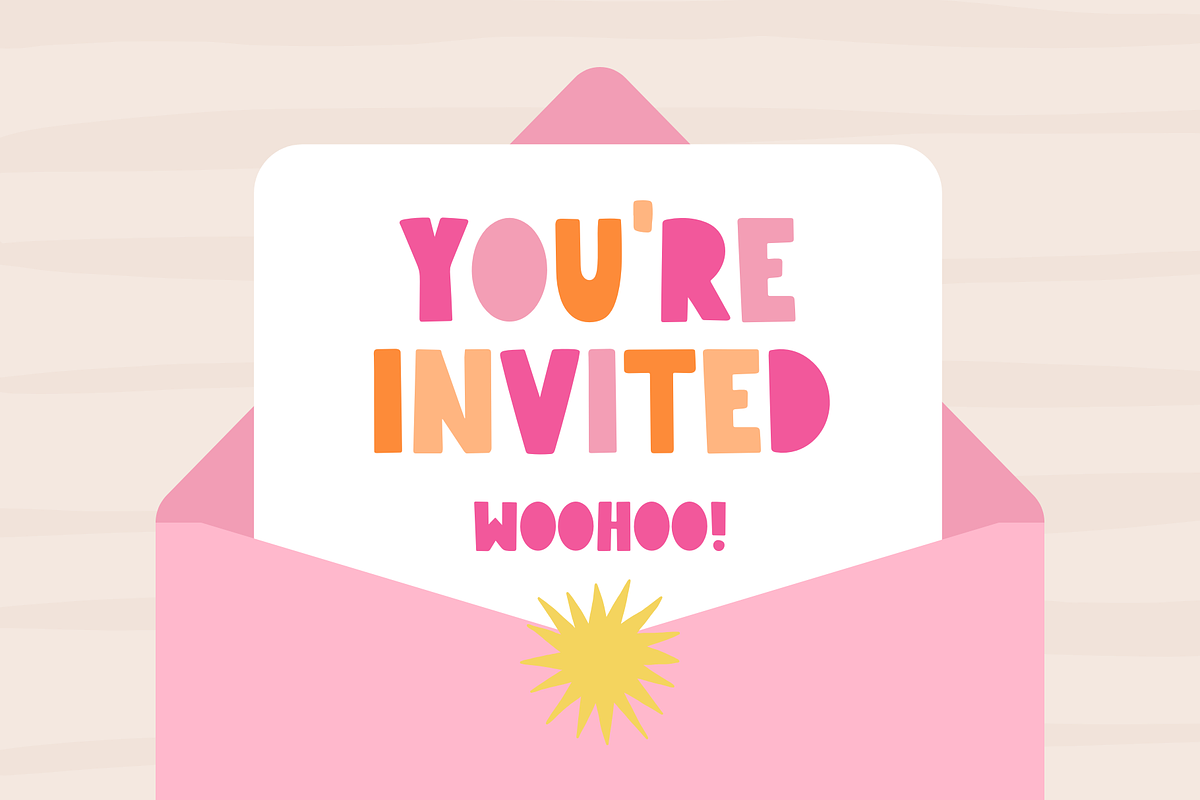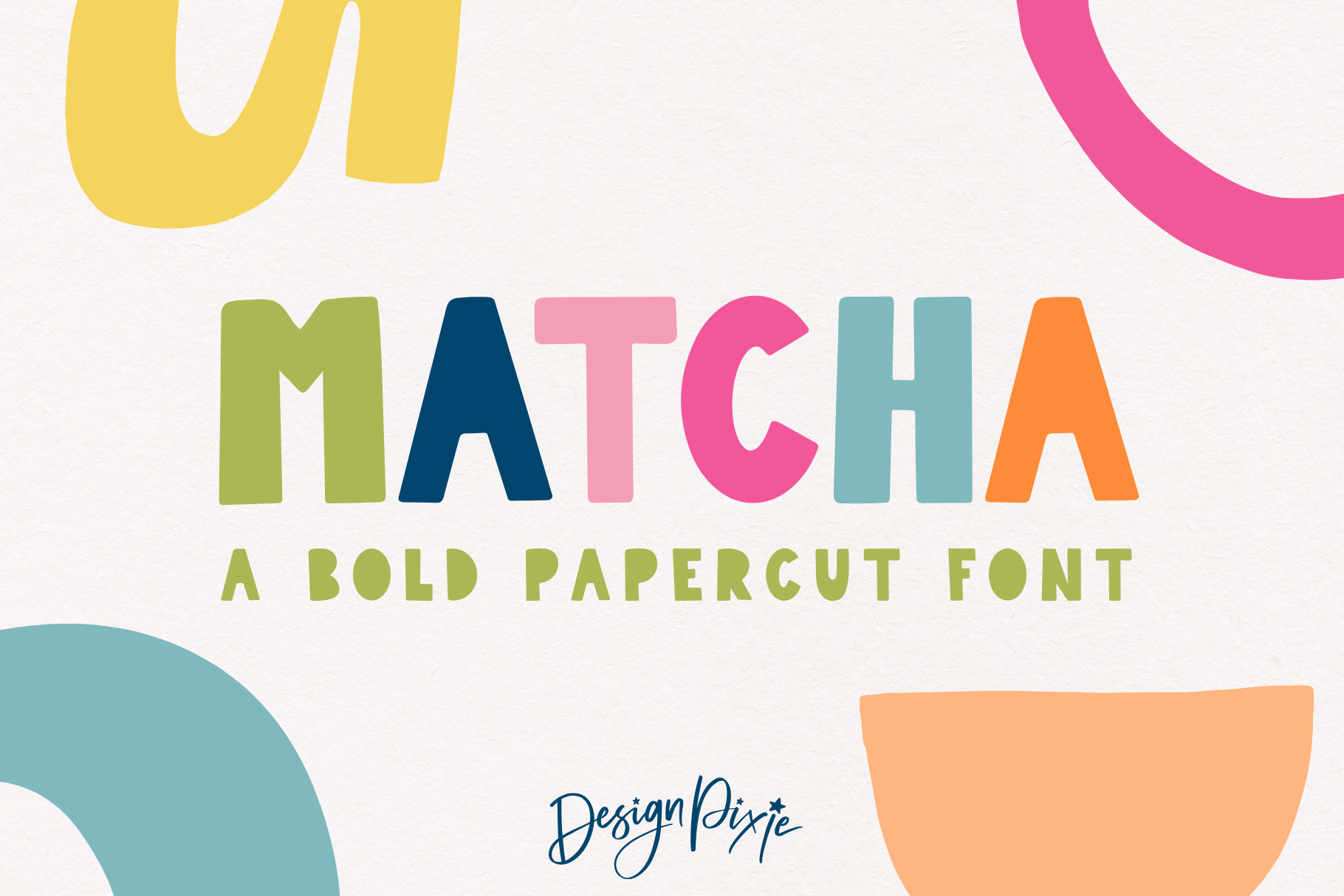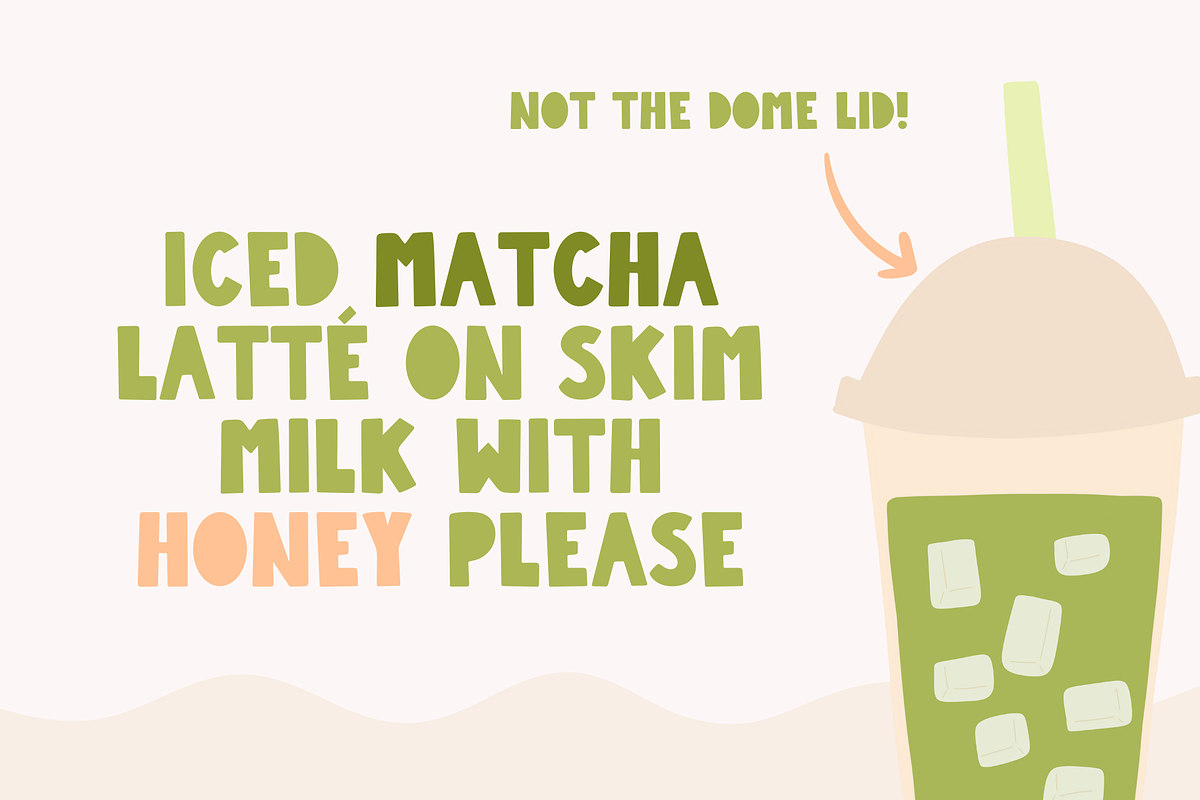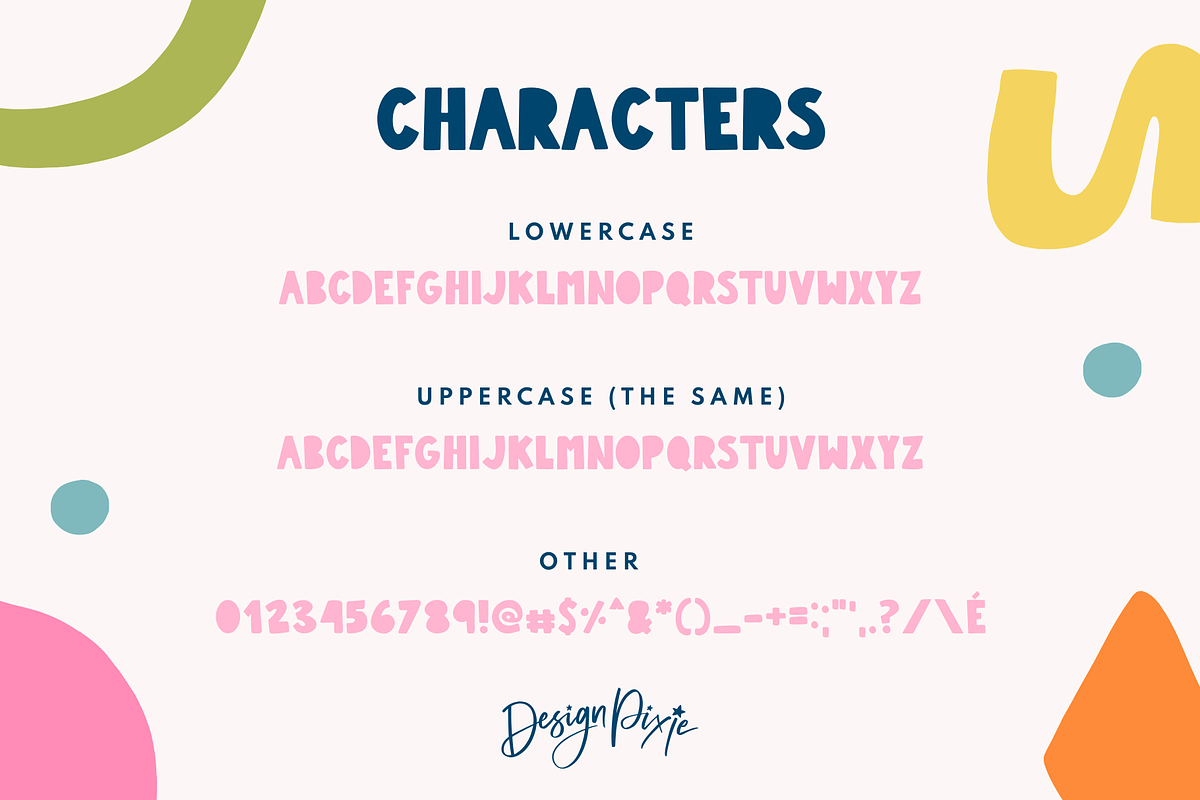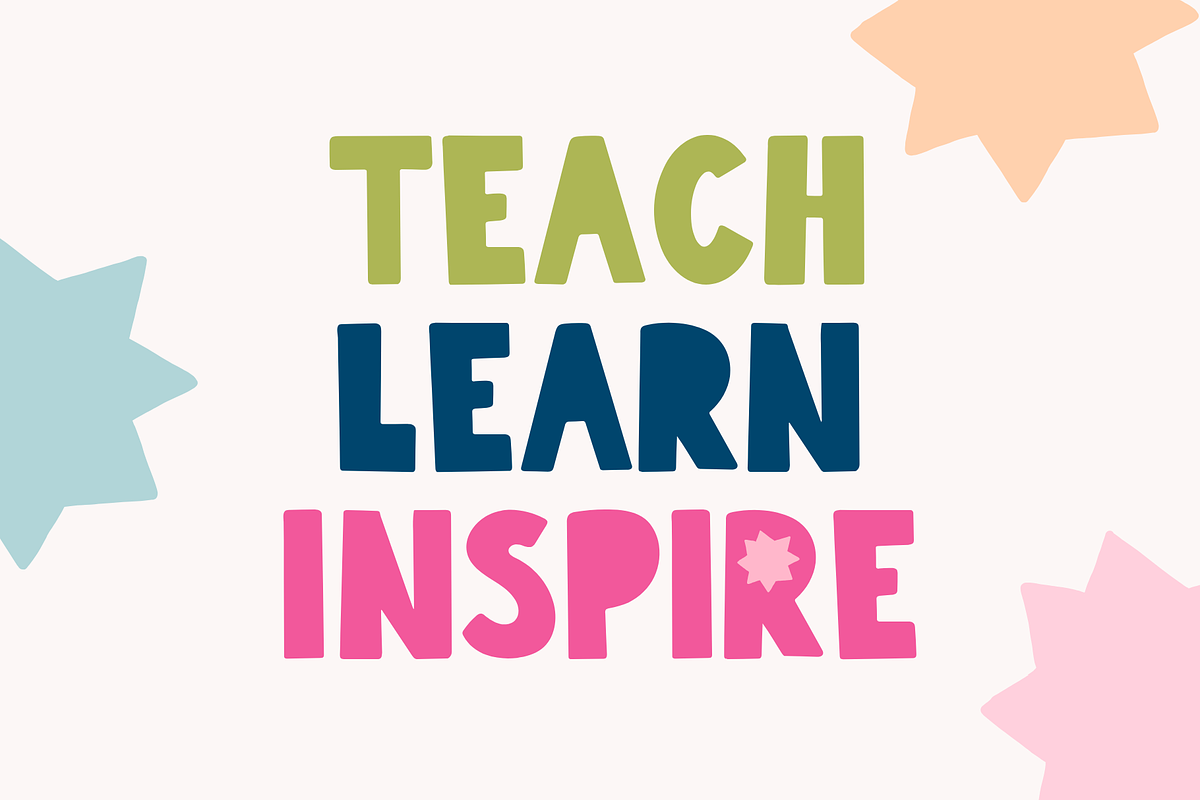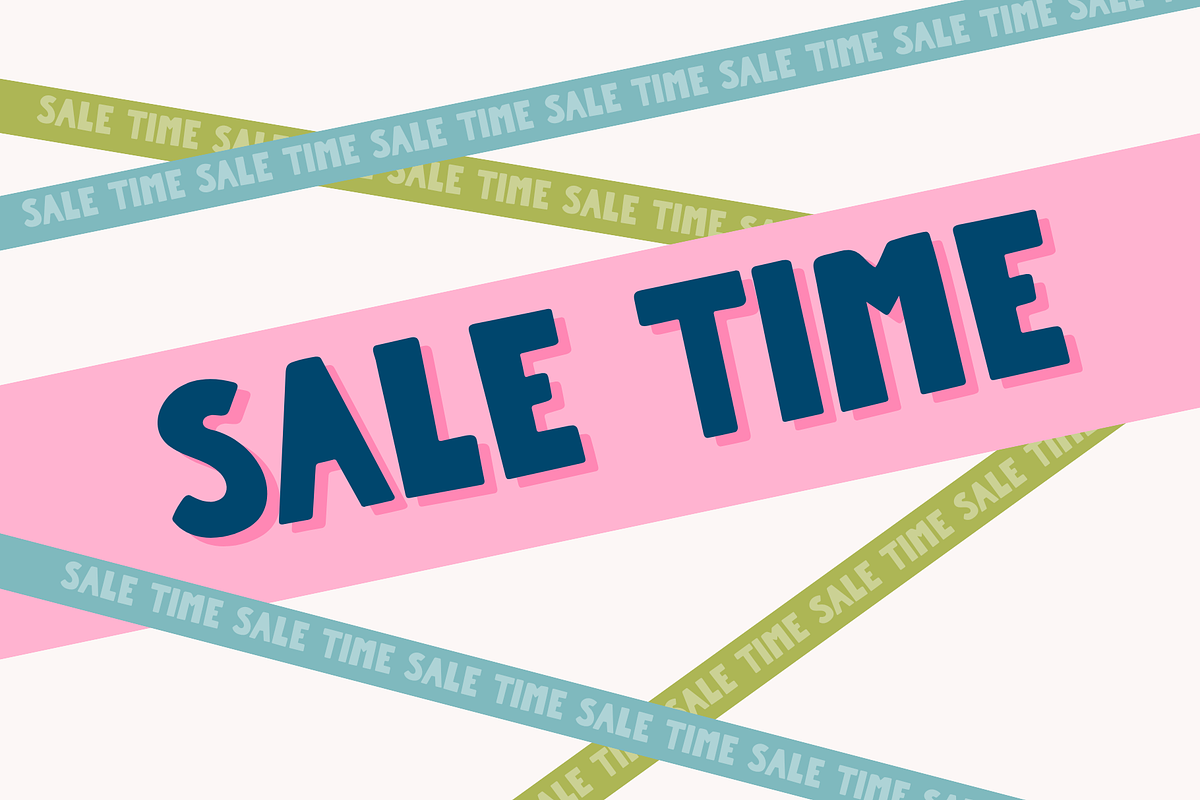
Matcha Font - Paper Cut
Matcha Font - Bold Papercut Display Typeface
Add a splash of fun and creativity to your designs with Matcha, a playful and bold papercut display font. Perfect for making a statement, this eye-catching typeface combines a quirky, hand-cut look with modern flair, ensuring your text stands out in every project.
Unique Paper Cut Style: Matcha features a distinctive papercut design, giving your text a dynamic, textured appearance that grabs attention.
Playful And Fun: Ideal for designs that need a touch of playfulness, Matcha adds a cheerful and lively vibe to any project.
Versatile Applications: Use it for posters, social media graphics, branding, and more - anywhere you want to make an impact with a fun twist.
Whether you're creating vibrant promotional materials or eye-catching social media posts, Matcha is your go-to font for bold, impactful designs that leave a lasting impression.